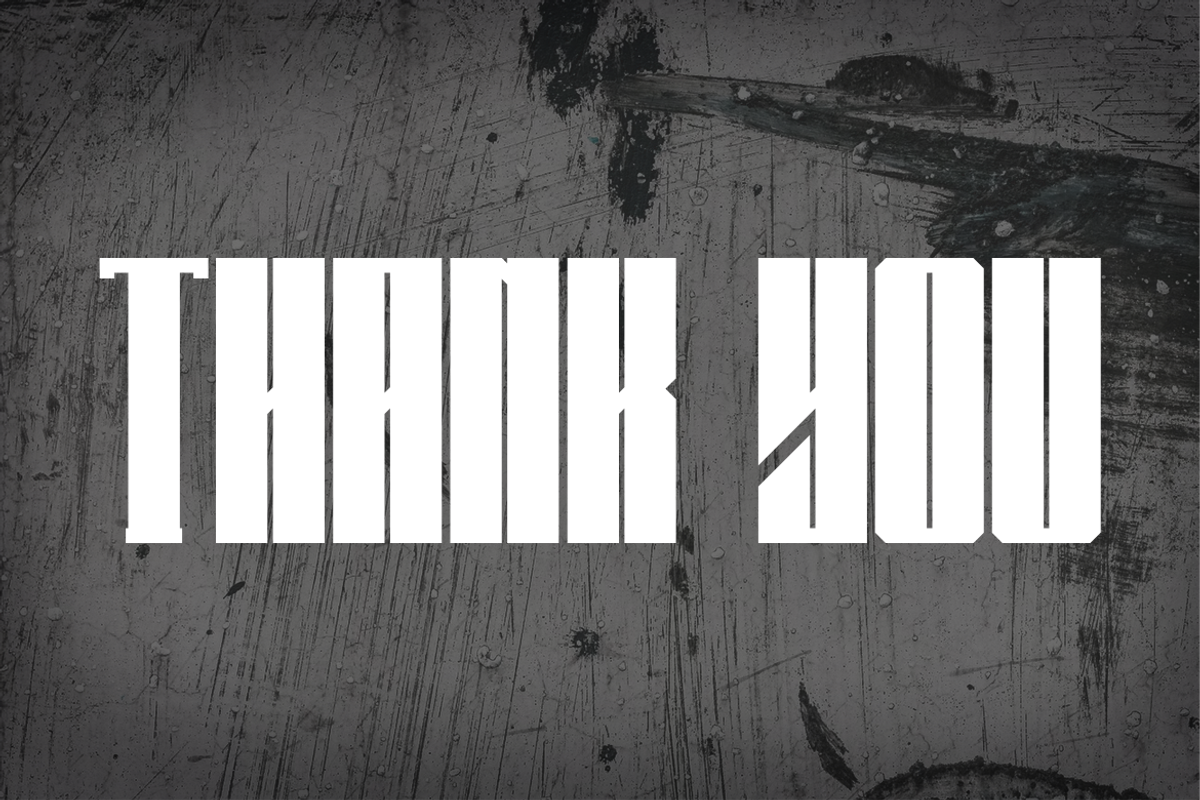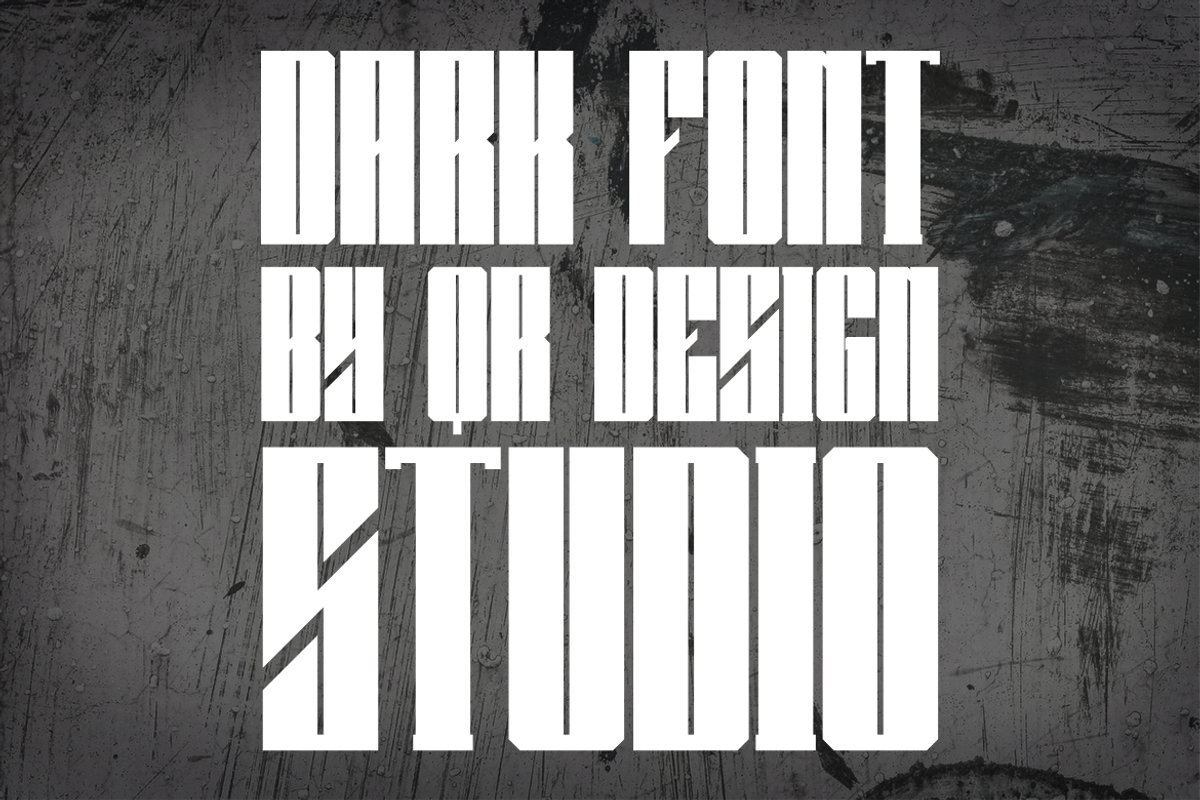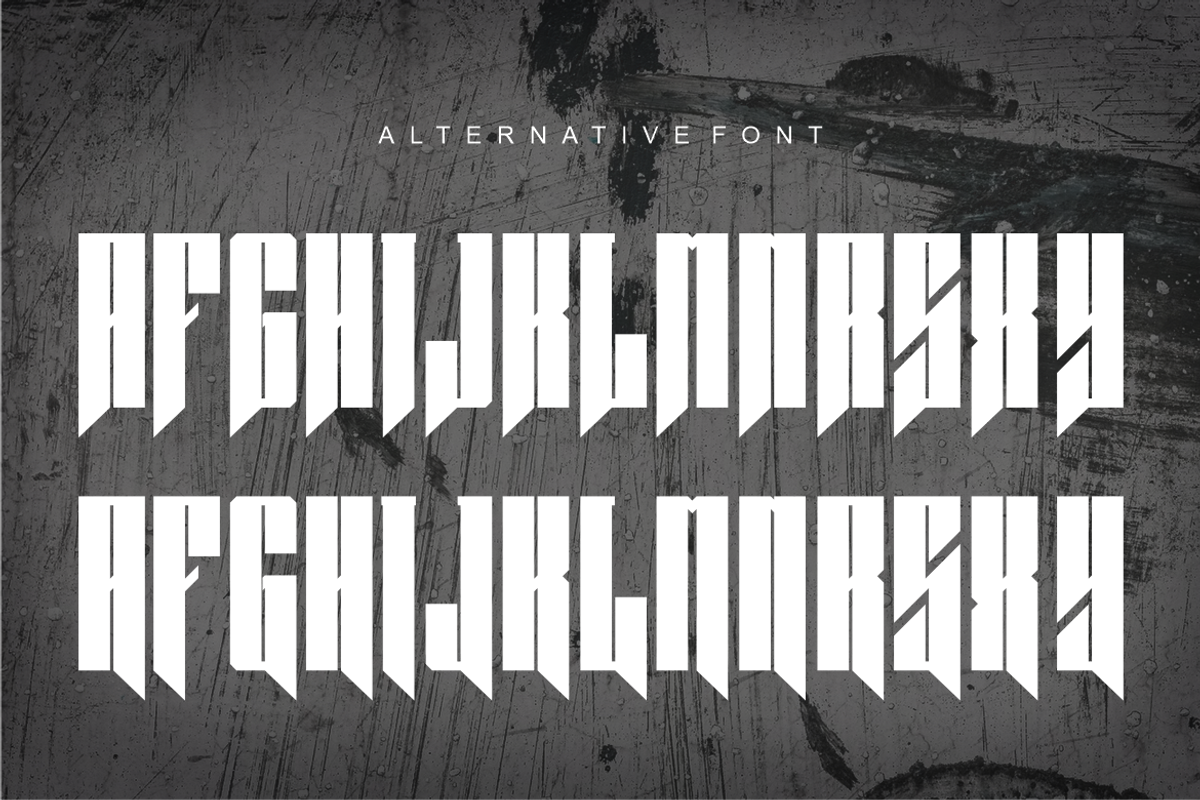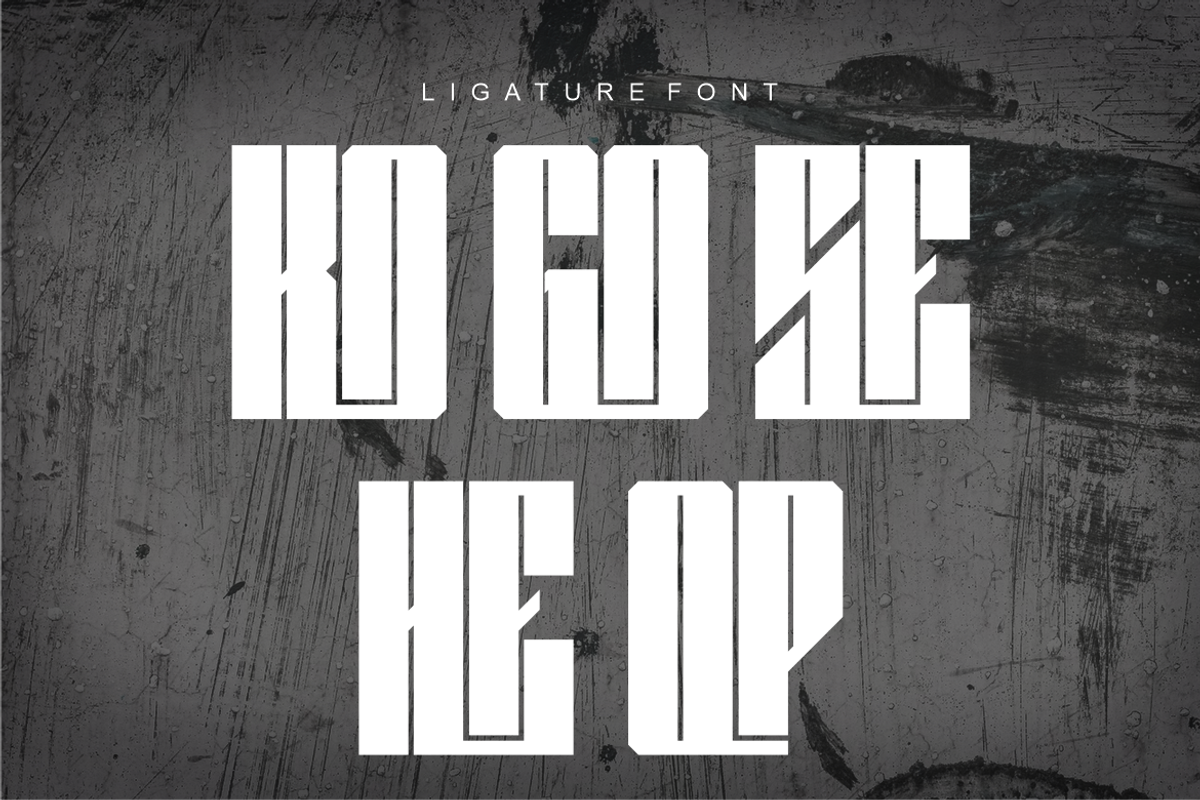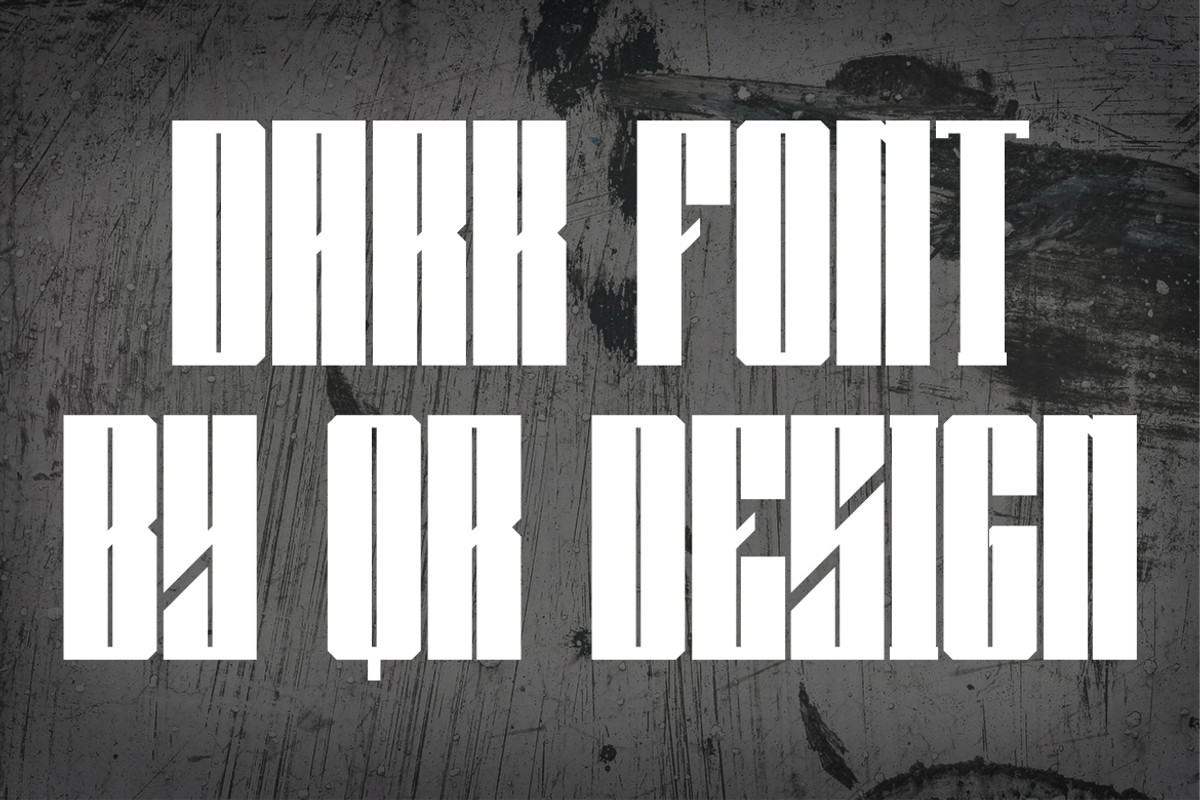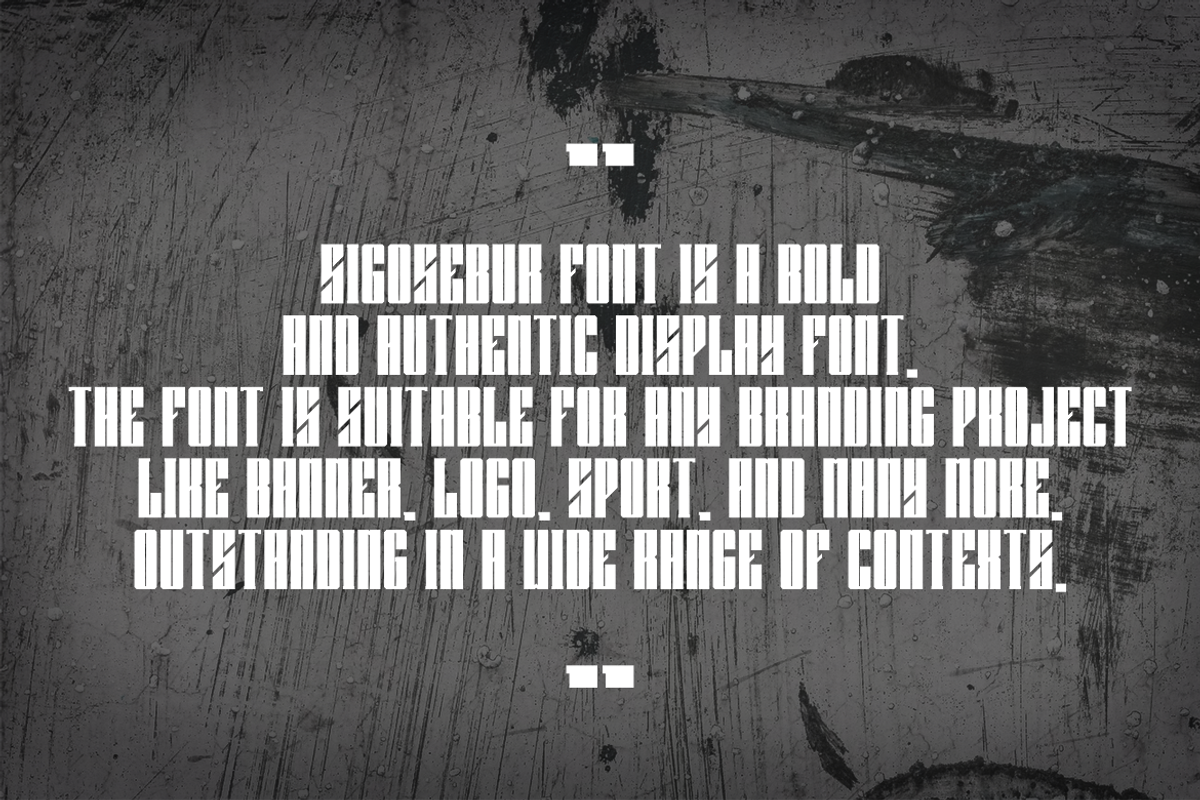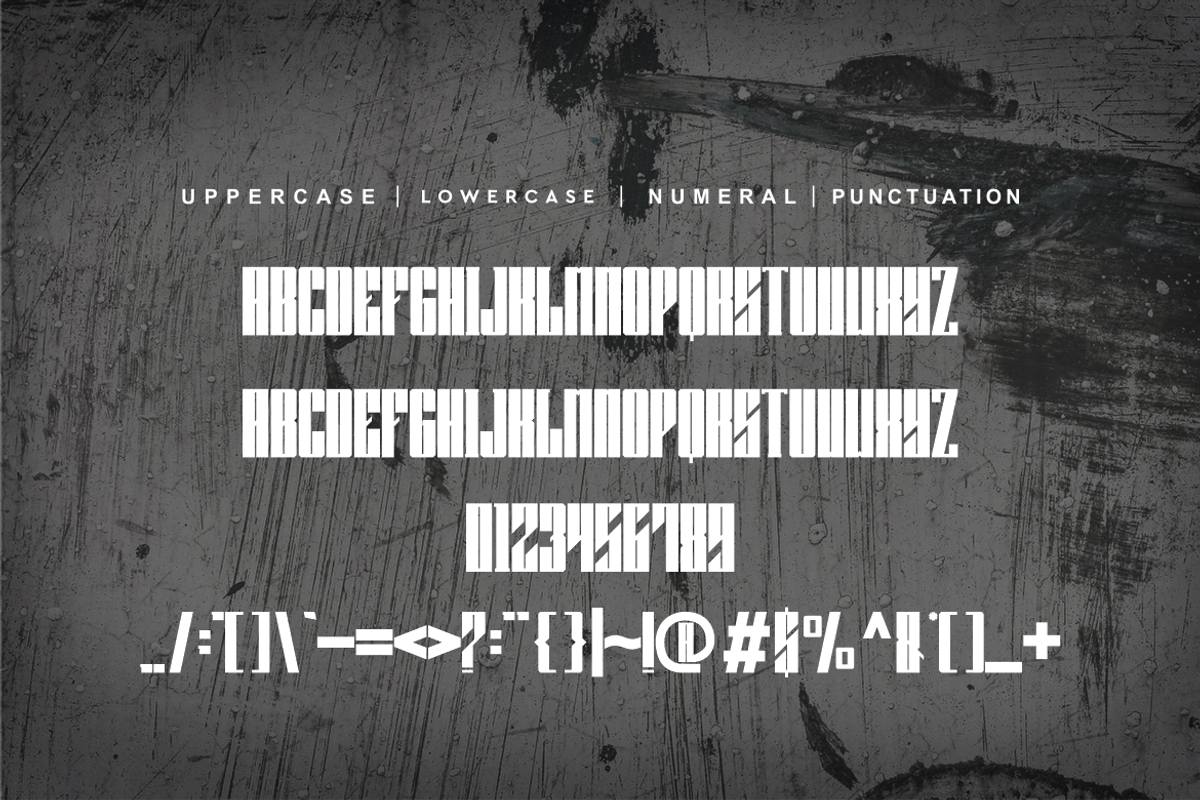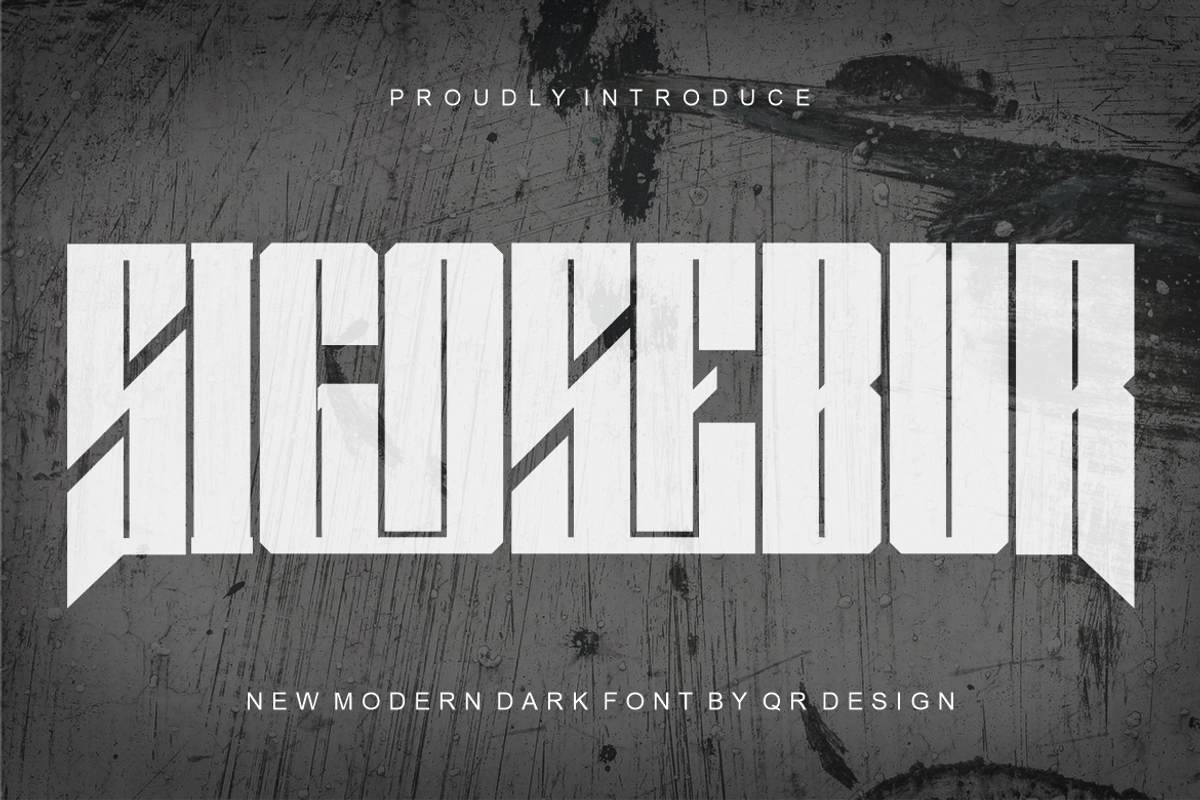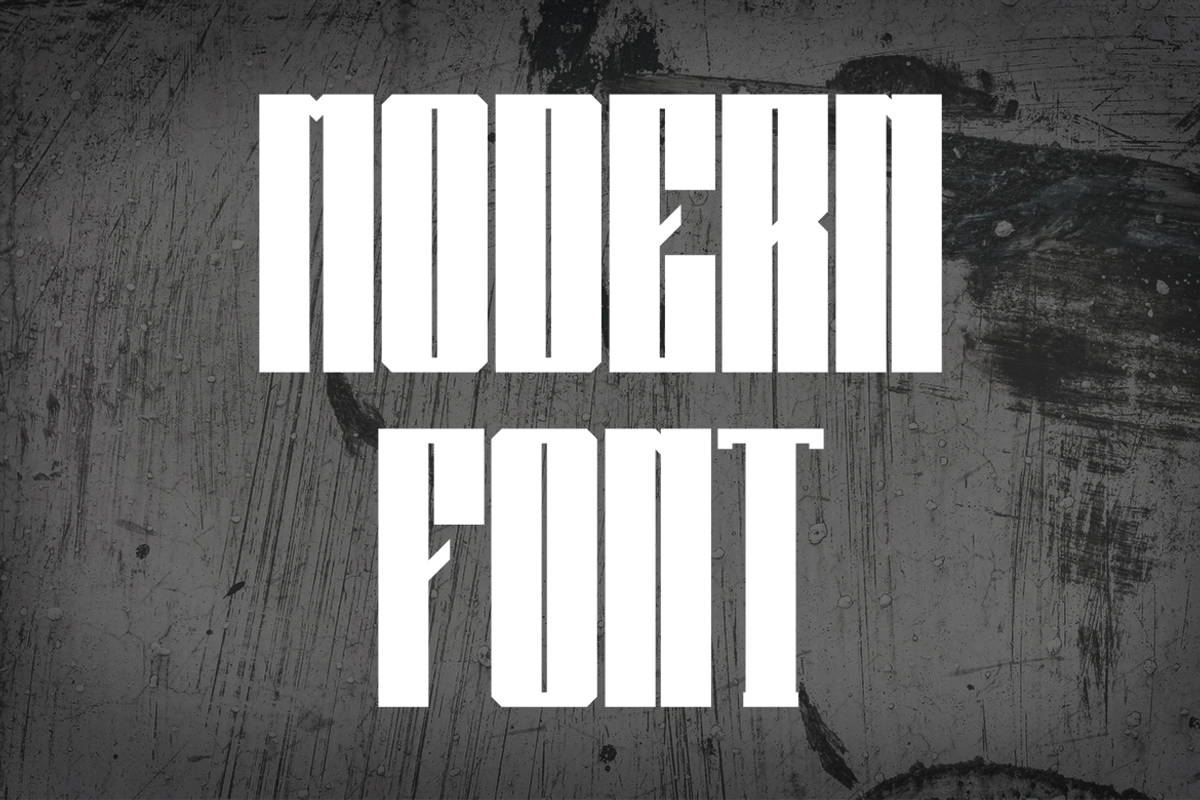
Sigosebur
Sigosebur Font is a bold and authentic display font. The font is suitable for any branding project like logo, sport, and many more. Outstanding in a wide range of contexts.